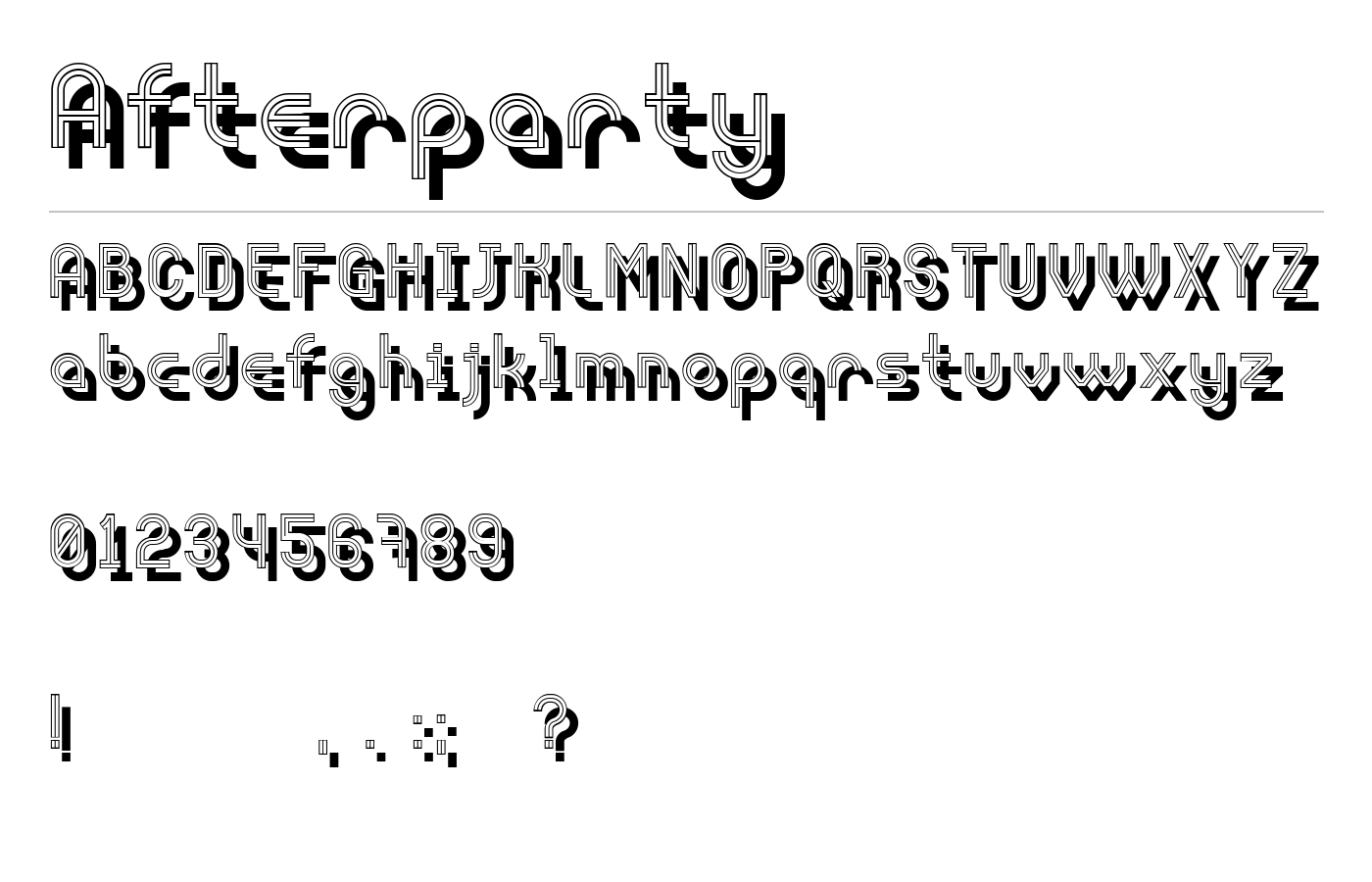
Afterparty is a bold, playful sans serif font with a striking layered outline and shadow effect that adds depth and energy to each letter. Its geometric shapes and unique double-line accents give it a modern, retro-futuristic vibe, making it ideal for eye-catching headlines, posters, and branding that needs a fun and dynamic personality. This font works wonderfully for creative projects and events where a lively, upbeat feel is desired.
Afterparty Font
About Afterparty Font
| Font family | Afterparty Font |